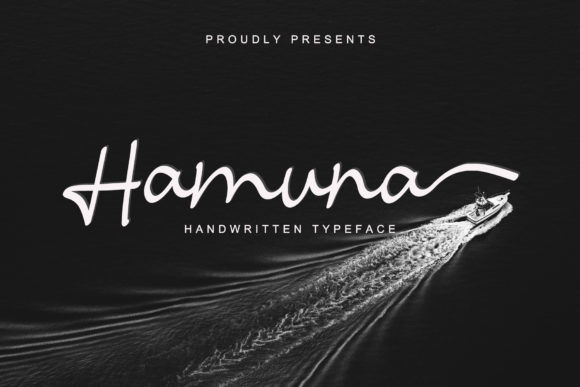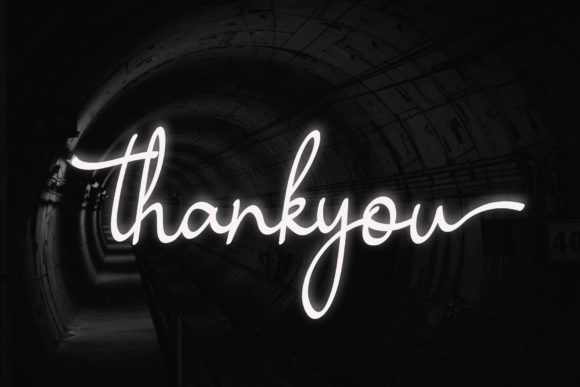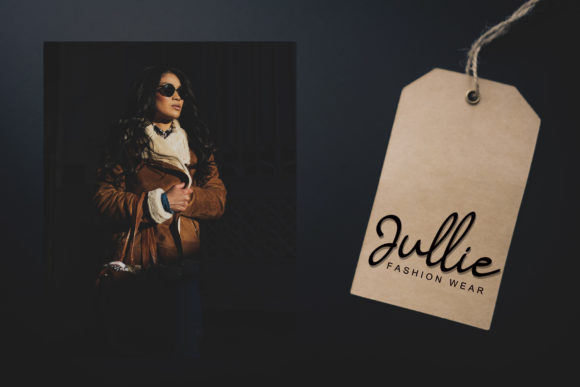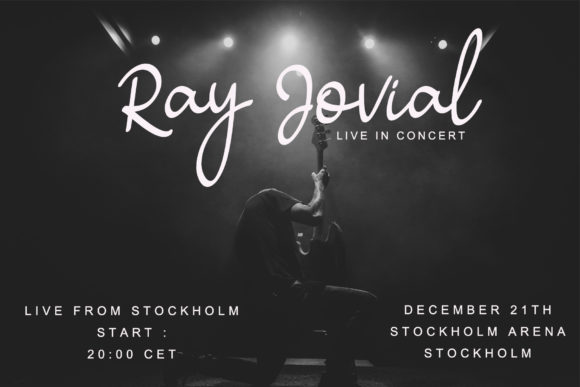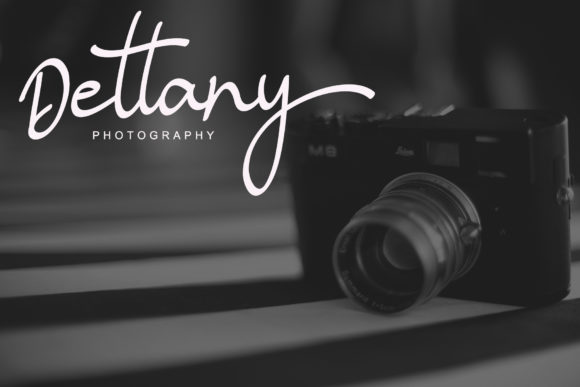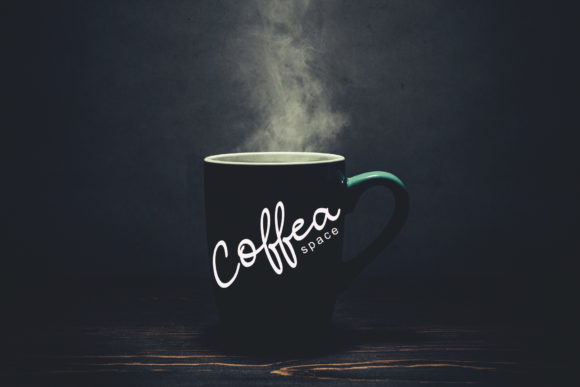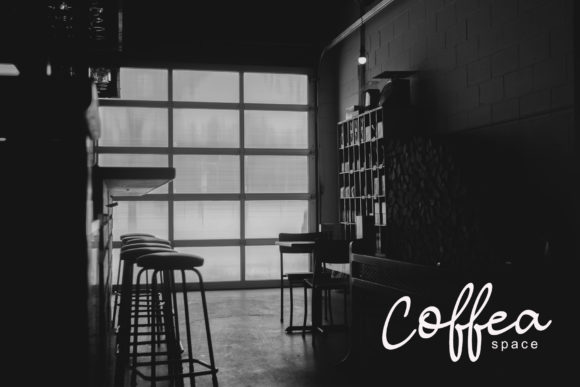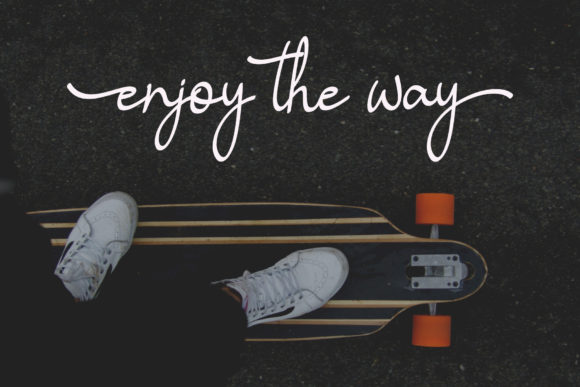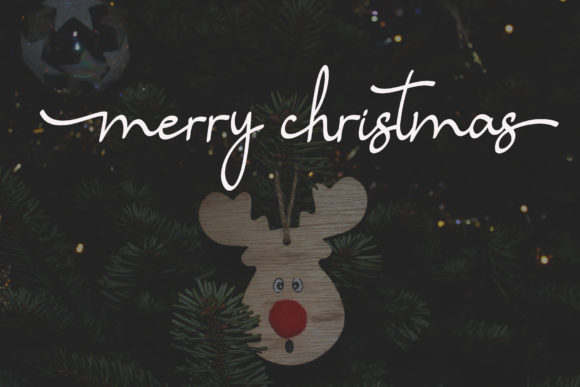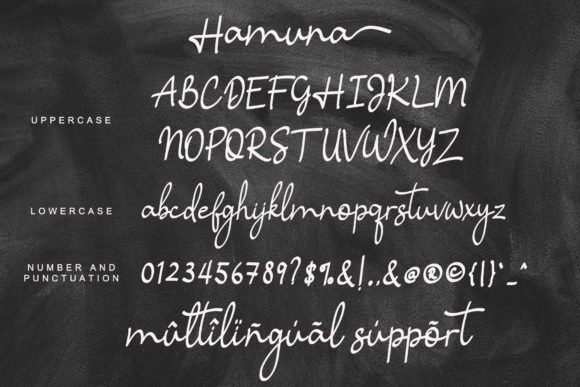
Hamuna Font
About Hamuna Font
Hamuna is a simple, casual and elegant script featuring a natural look in its ligatures & beautiful swashes. Hamuna is perfect for logos, posters, social media posts, signatures and much more!